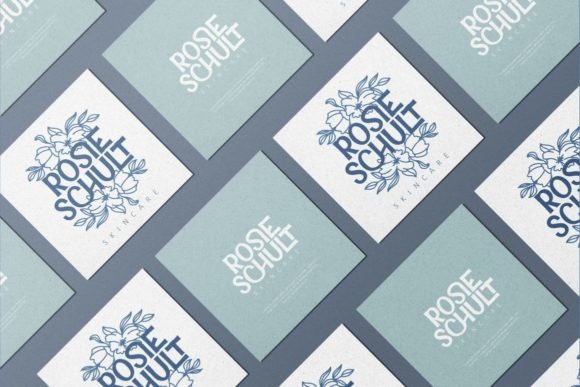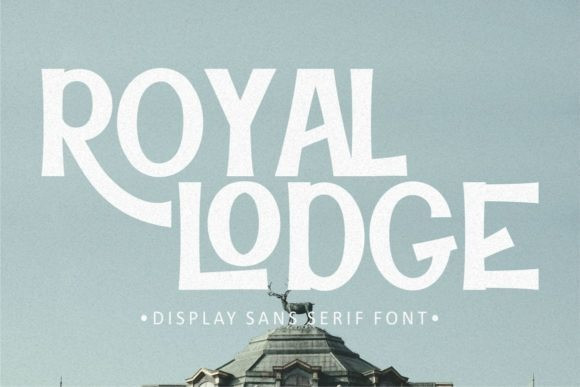
Royal Lodge Font
Royal Lodge Display Font is a cool and bold display font. It is PUA encoded which means you can access all glyphs and swashes with ease!